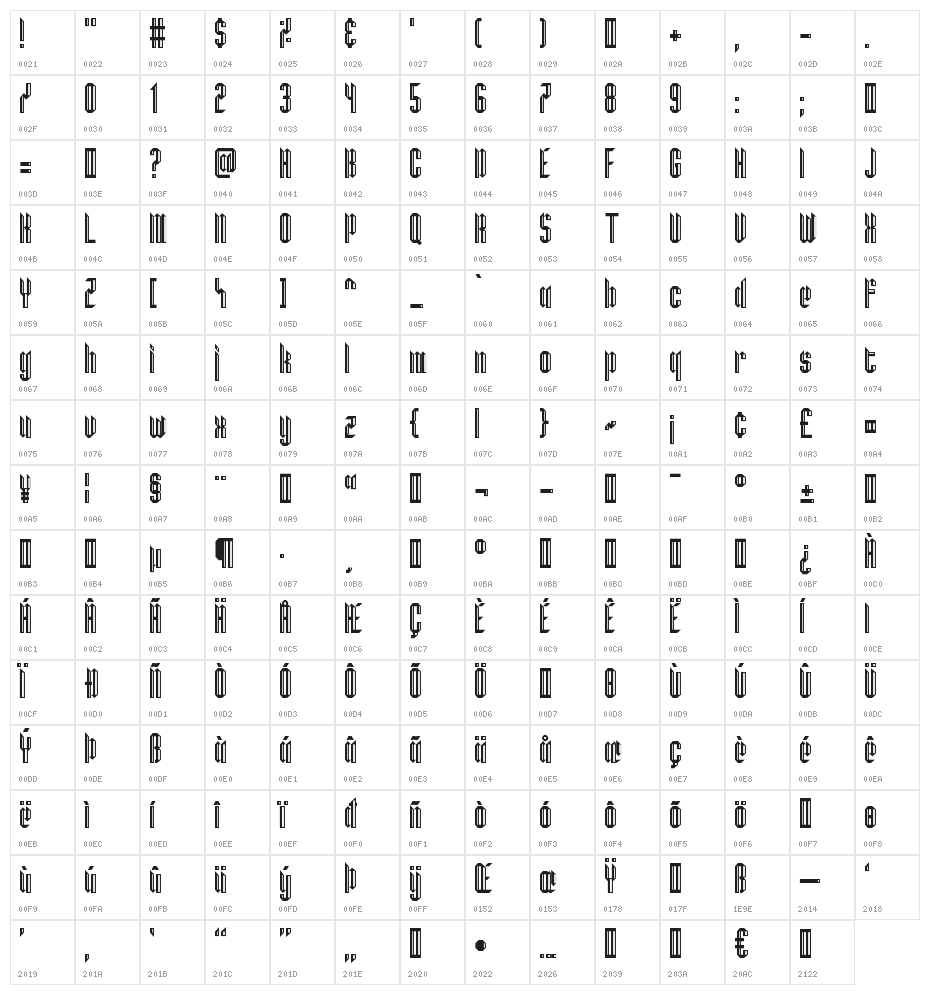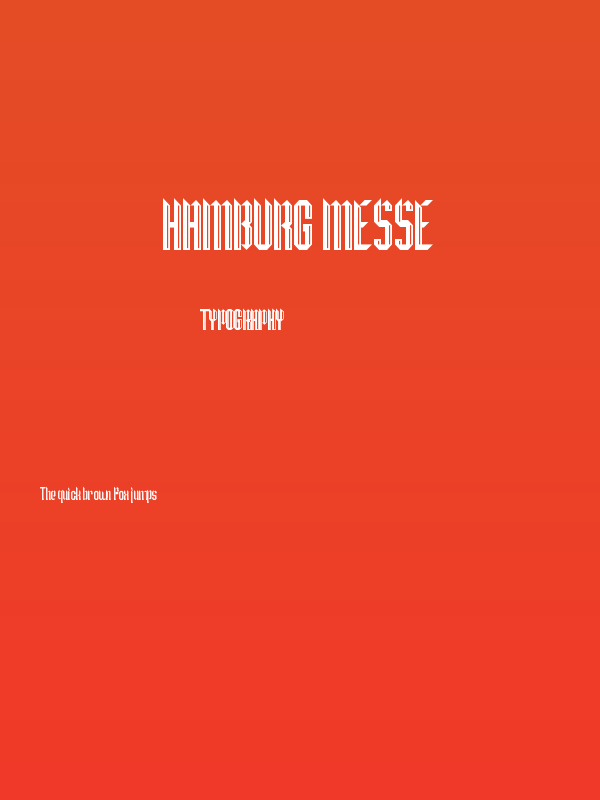
Hamburg Messe Font
Hamburg Messe Description
This font features a bold, geometric design with a distinct three-dimensional effect. The characters are constructed with sharp angles and thick lines, giving them a strong, impactful presence. The uppercase and lowercase letters maintain a consistent style, with the lowercase being slightly more condensed. The numerals and special characters follow the same design principles, ensuring uniformity across all glyphs. The font's unique style is reminiscent of industrial or futuristic themes, making it suitable for projects that require a bold and modern aesthetic.
| Proposed Projects | This font is perfect for branding, posters, headlines, and any project that requires a strong visual impact. |